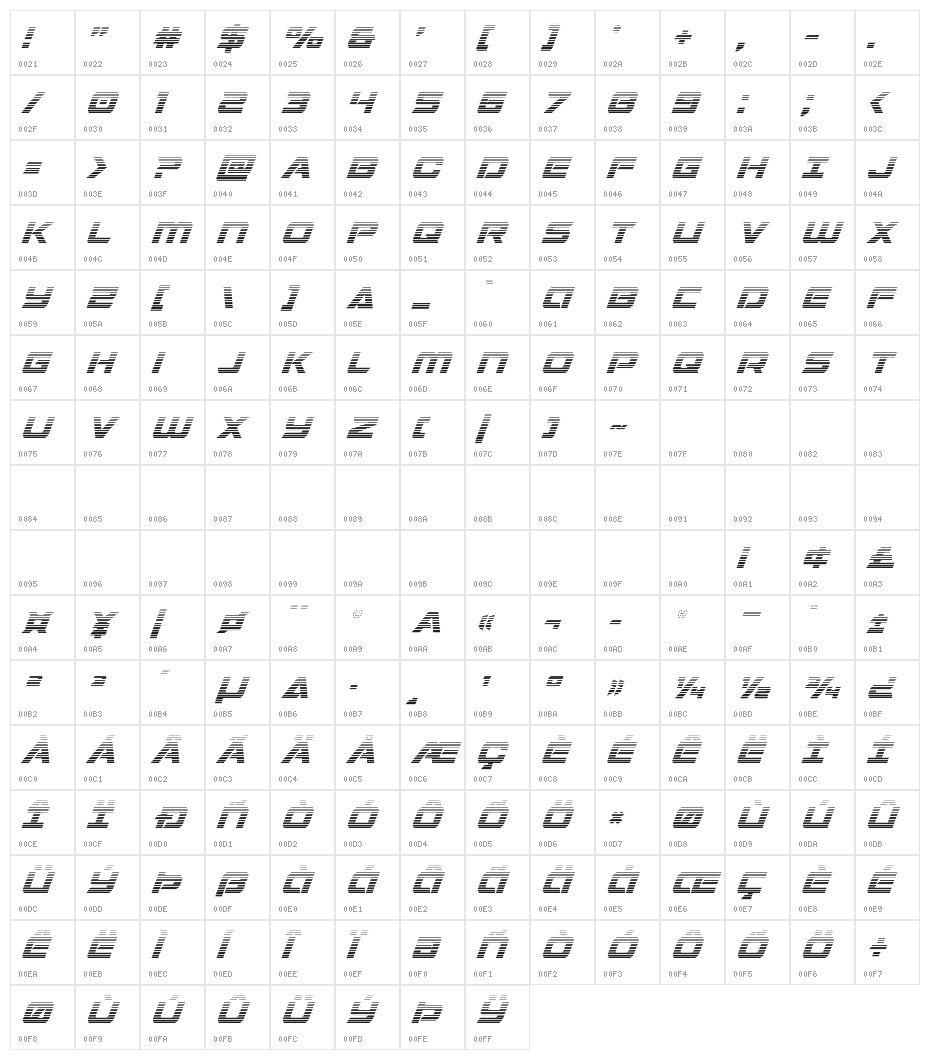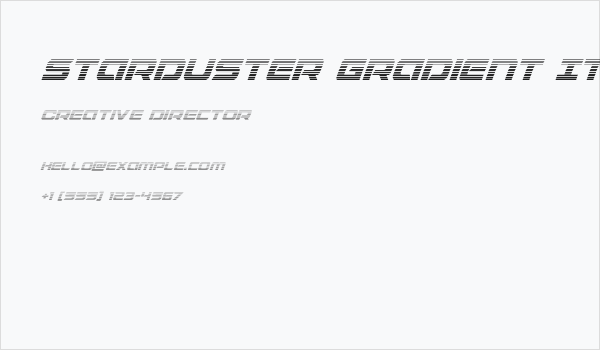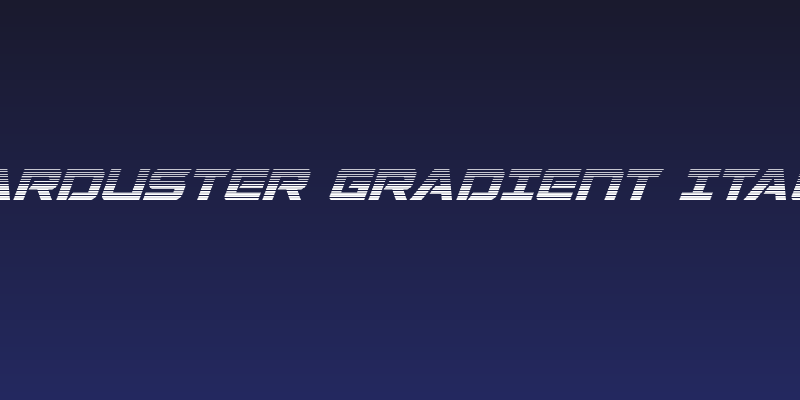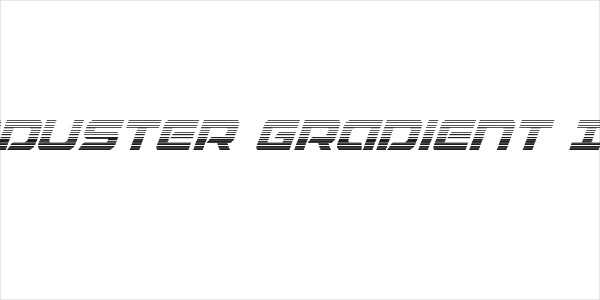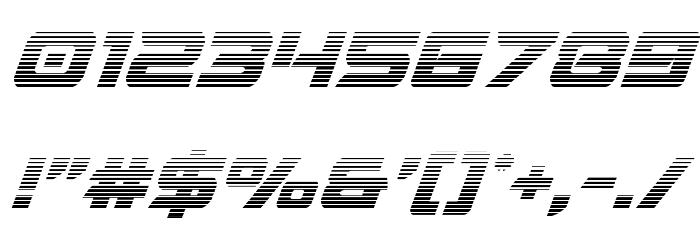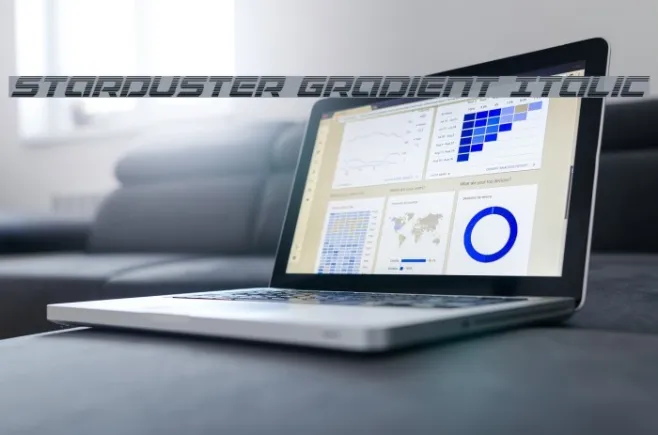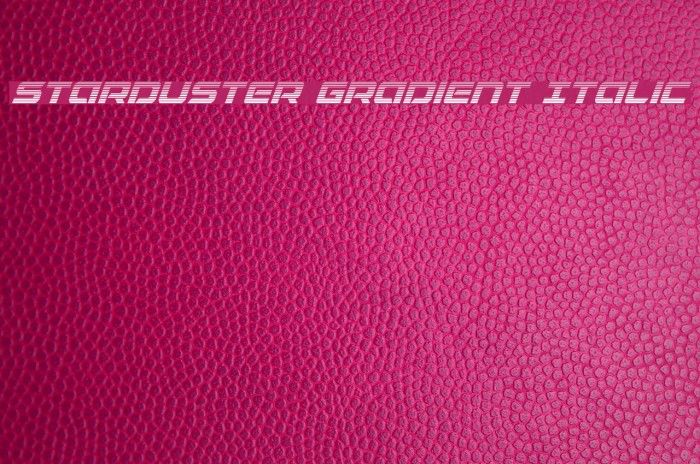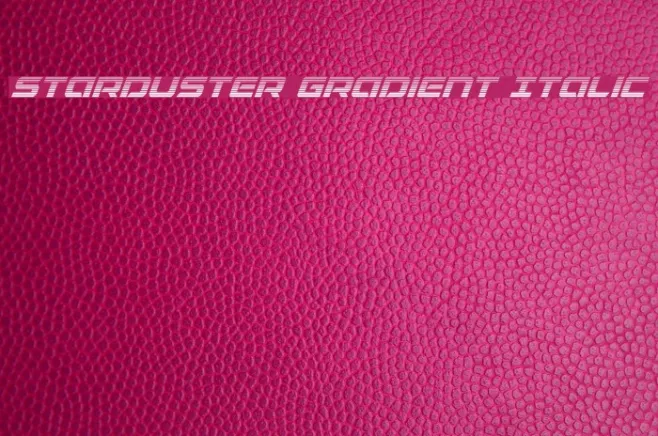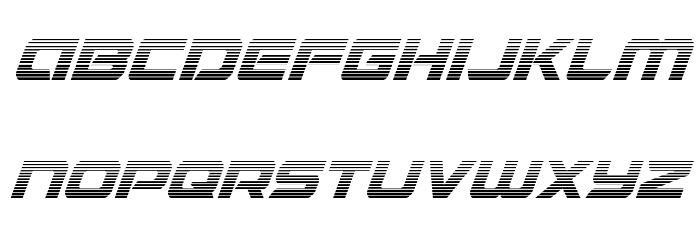
Starduster Gradient Italic Font
Starduster Gradient Italic Description
This font features a futuristic and dynamic design with a gradient effect that gives it a sense of movement and energy. The italicized style adds a sleek and modern touch, making it ideal for projects that require a bold and eye-catching appearance. The characters are composed of horizontal lines that create a striped pattern, enhancing the visual interest and uniqueness of the font. Its geometric structure and clean lines make it suitable for digital and tech-related themes, while the gradient effect adds depth and dimension.
| Proposed Projects | Ideal for sci-fi movie titles, tech company logos, video game covers, and futuristic event posters. |